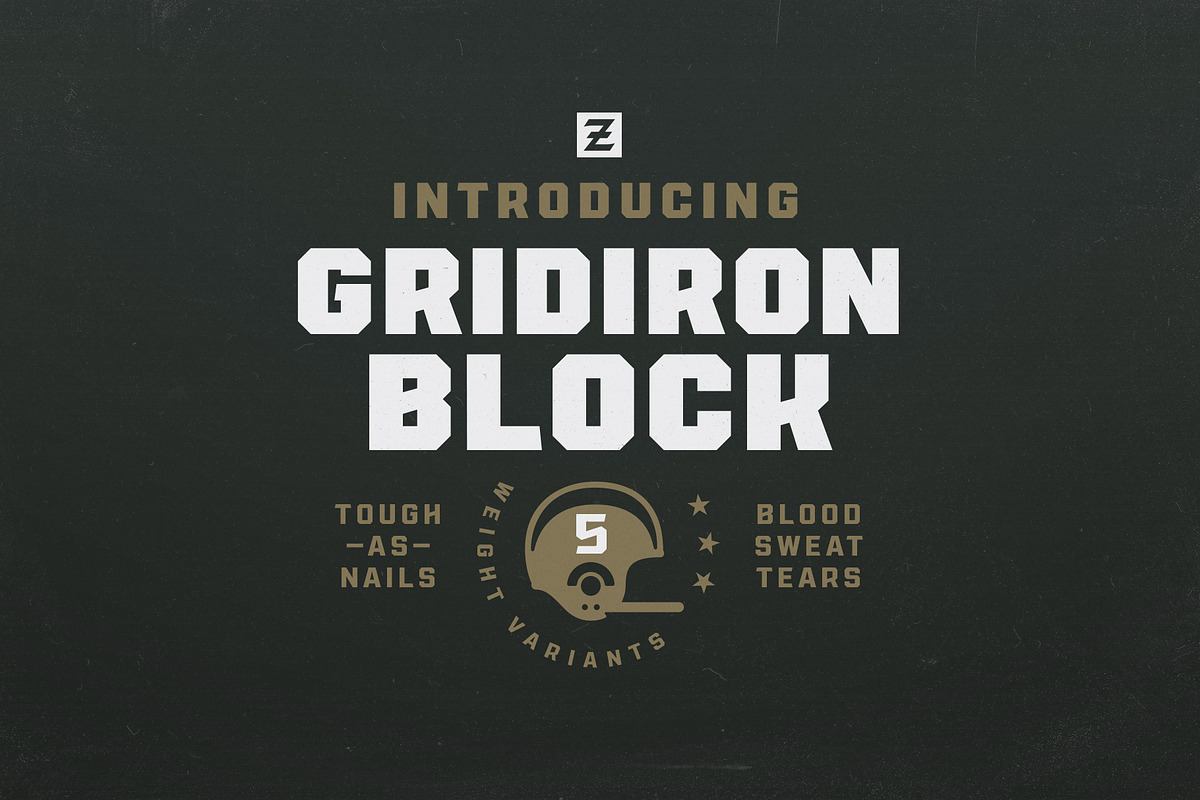
Gridiron Block Font Free Download is a powerful, all-caps display typeface inspired by classic sports lettering and collegiate aesthetics. Please note: you must purchase this font for commercial use, but you can test it through a free download. With its bold structure, clean lines, and strong presence, Gridiron Block is perfect for sports branding, team uniforms, posters, school merchandise, and impactful headline design.
Whether you're designing for a football championship, a varsity-themed apparel line, or an athletic event flyer, Gridiron Block Font Free Download delivers strength, clarity, and team spirit in every character. Its assertive style commands attention while staying sharp and easy to read. Fully compatible with Adobe Illustrator, Photoshop, and Canva, this font is a winning addition to any designer’s toolkit. Download it today for personal use and bring bold energy and athletic pride to your next creative project.